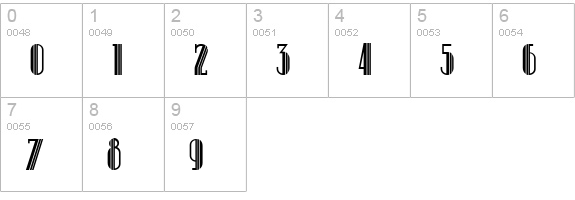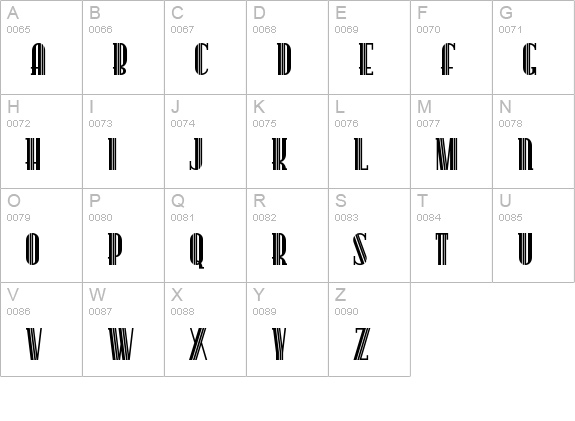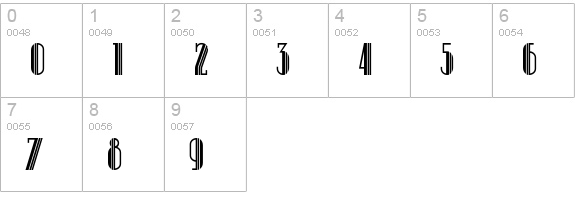
Super Bob Triline Nf Font Details
Super Bob Triline Nf is a stunning display font that exudes modernity and style. With its unique triple-line design, this font is perfect for making a bold statement in your projects. Whether you're creating eye-catching posters, striking headlines, or attention-grabbing branding materials, Super Bob Triline Nf is sure to captivate your audience. The best part? Super Bob Triline Nf is available for free download at FontsMarket.com. This means you can enjoy the premium quality of this font without breaking the bank. Don't miss out on the opportunity to elevate your designs with Super Bob Triline Nf - download it for free today and let your creativity shine!